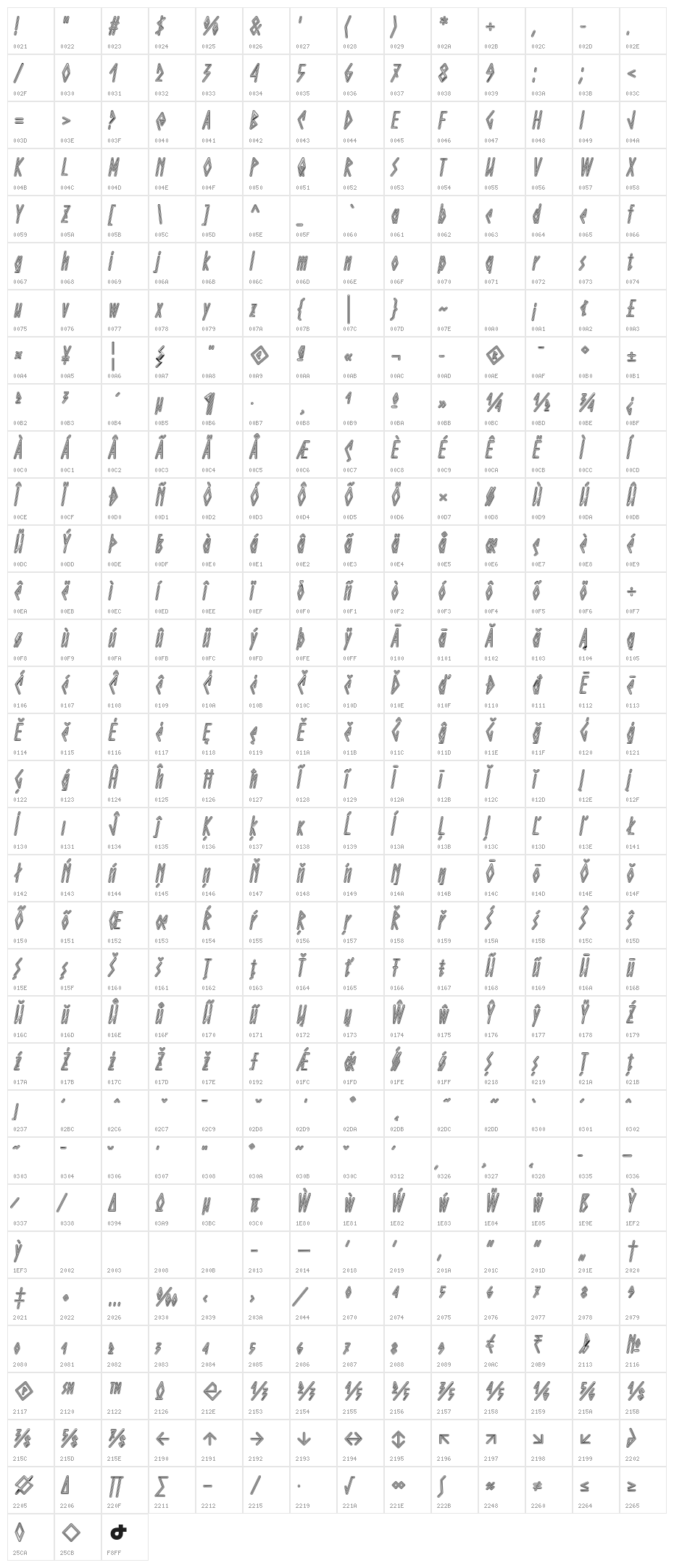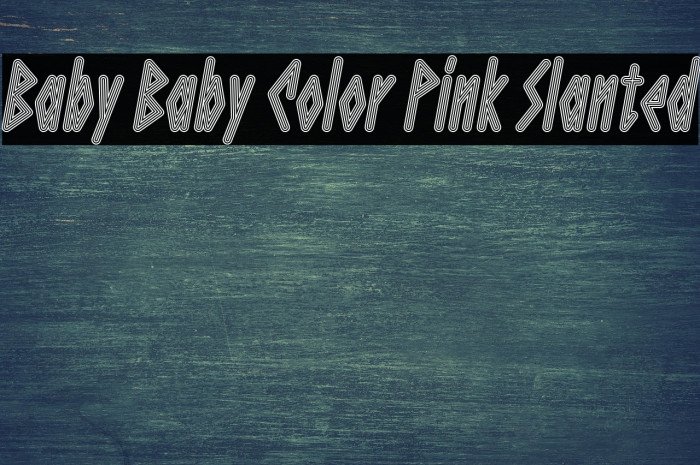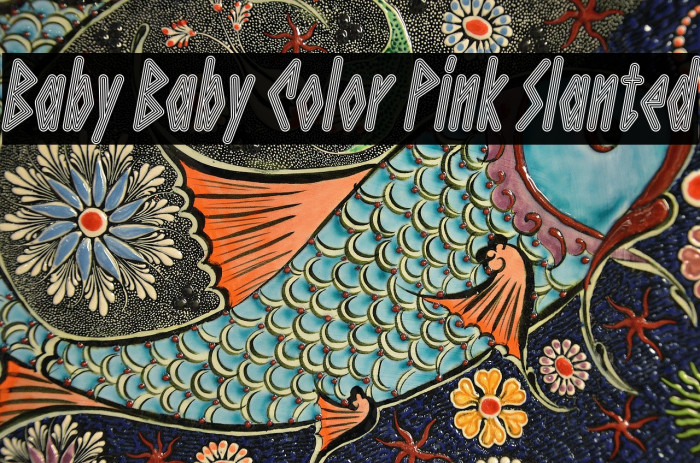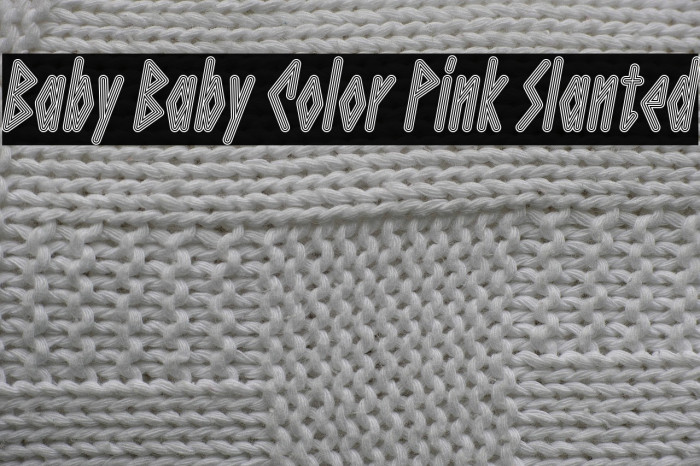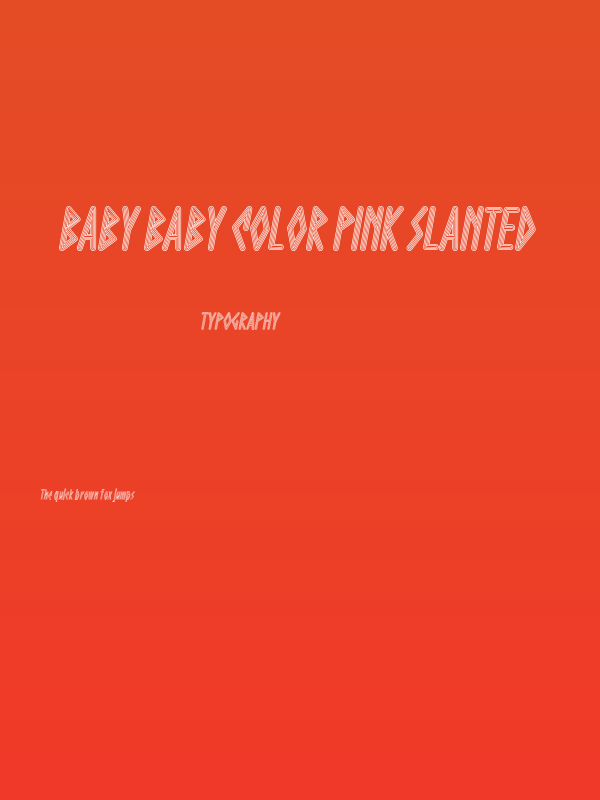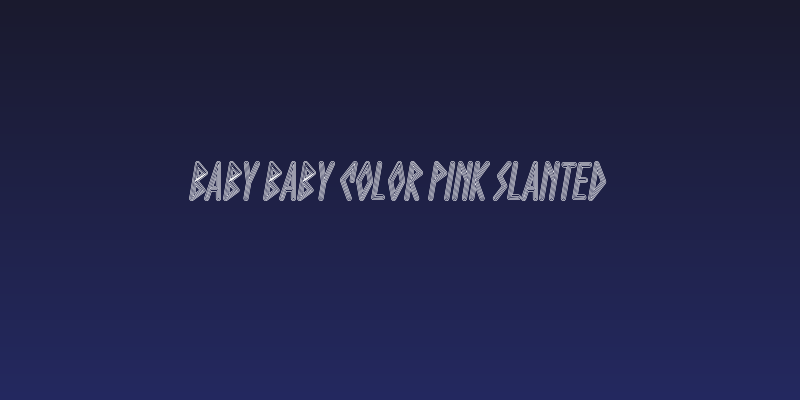
Baby Baby Color Pink Slanted Font
Baby Baby Color Pink Slanted Description
This font features a playful and dynamic design with a slanted, three-dimensional appearance. Each character is outlined with multiple lines, creating a layered effect that adds depth and interest. The uppercase and lowercase letters maintain a consistent style, with angular and geometric shapes that give a sense of movement. The numbers and special characters follow the same design principles, ensuring a cohesive look across all elements. This font is visually striking and ideal for projects that require a bold and energetic aesthetic.